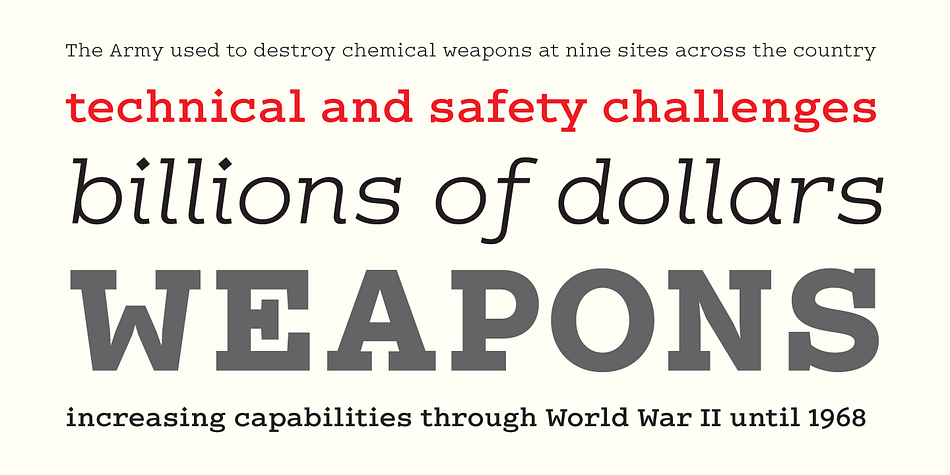
Colón
Designed by Ramiz Guseynov, Colón is a slab serif font family. This typeface has six styles and was published by TipografiaRamis.
Colón is a Slab Serif type family of three weights with matching italics.
The typeface design was influenced by the nostalgia for the aesthetic of a typewriter.
Colón extended family consists of two sub-families: Colón Mono with monospaced glyphs sets, and Colón (proportional glyphs sets) which is presented in these specimen pages.
Colón is released in OpenType format with extended support for most Latin languages, and includes some opentype features ñ such as proportional/tabular figures, slashed zero, ligatures, fractions, etc.